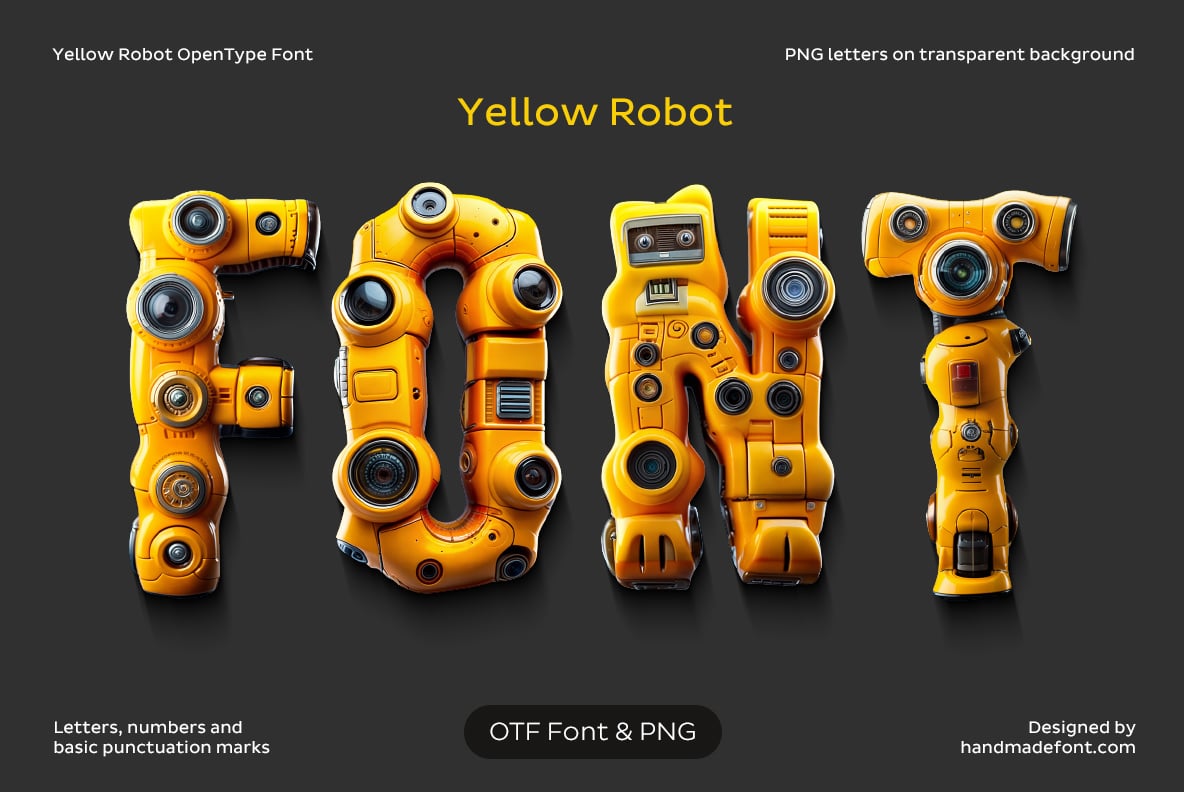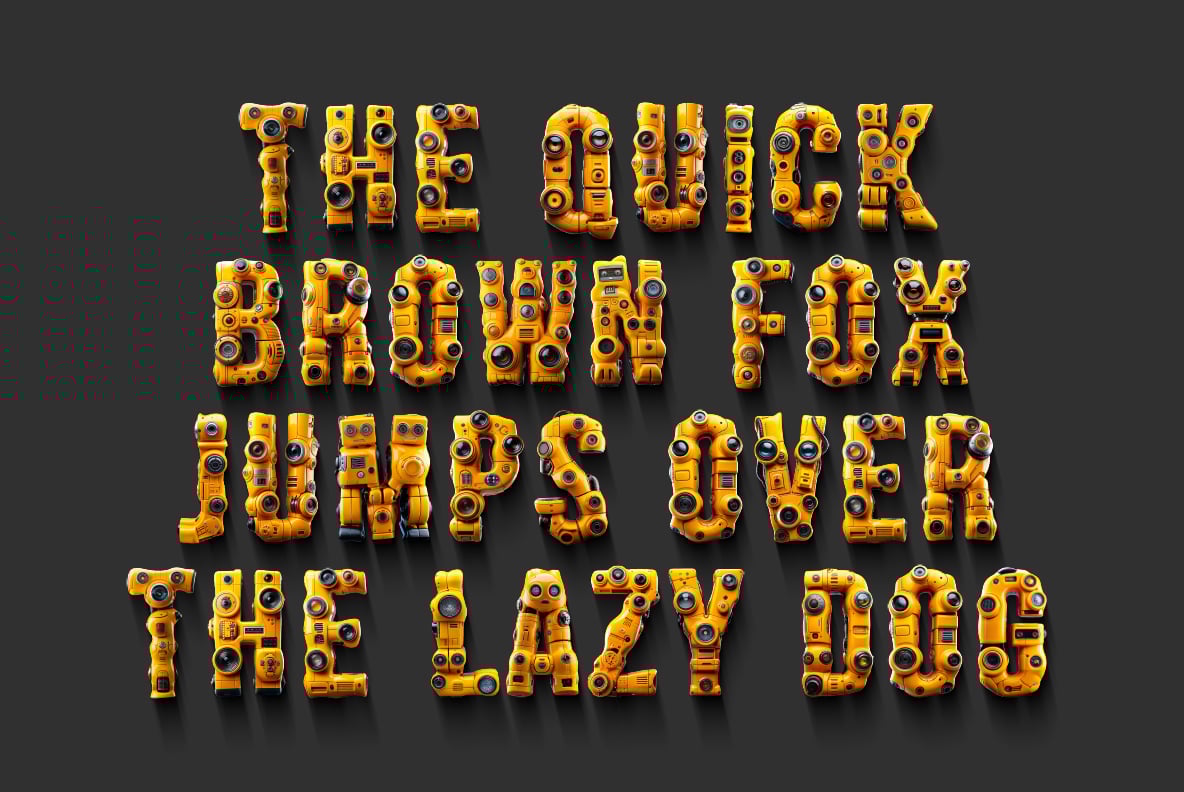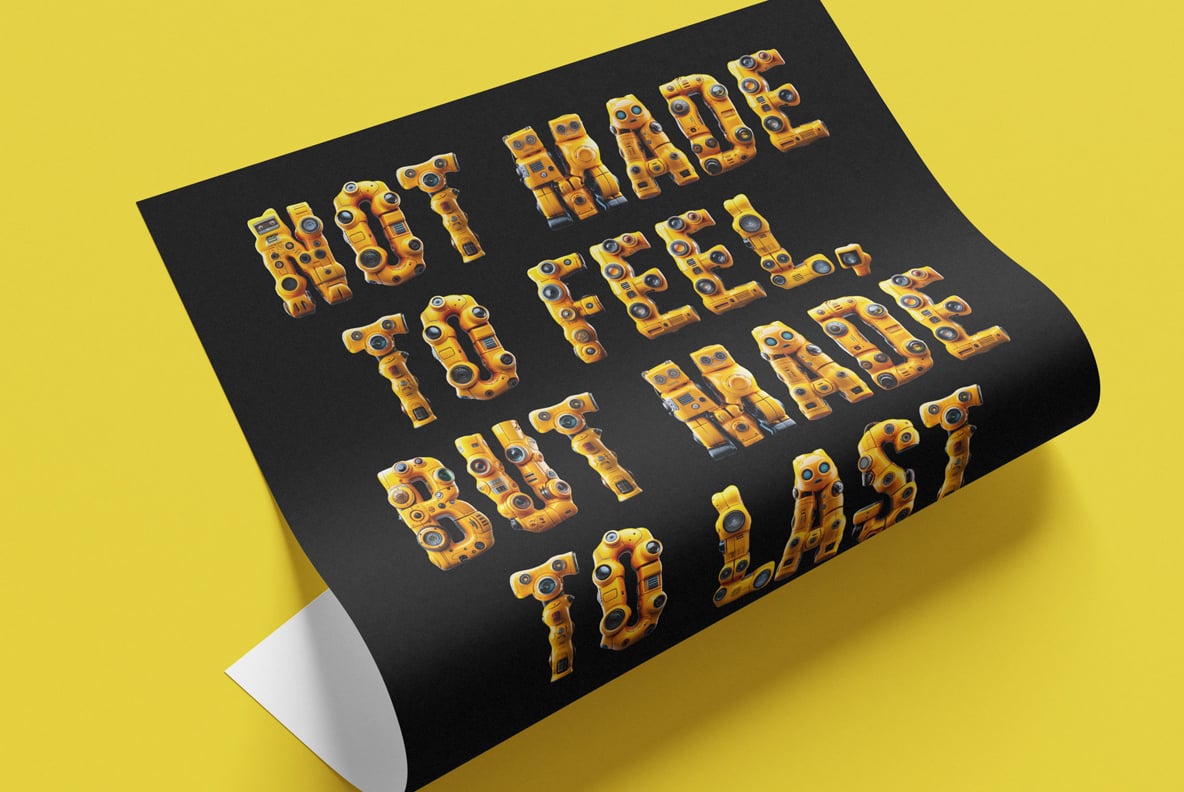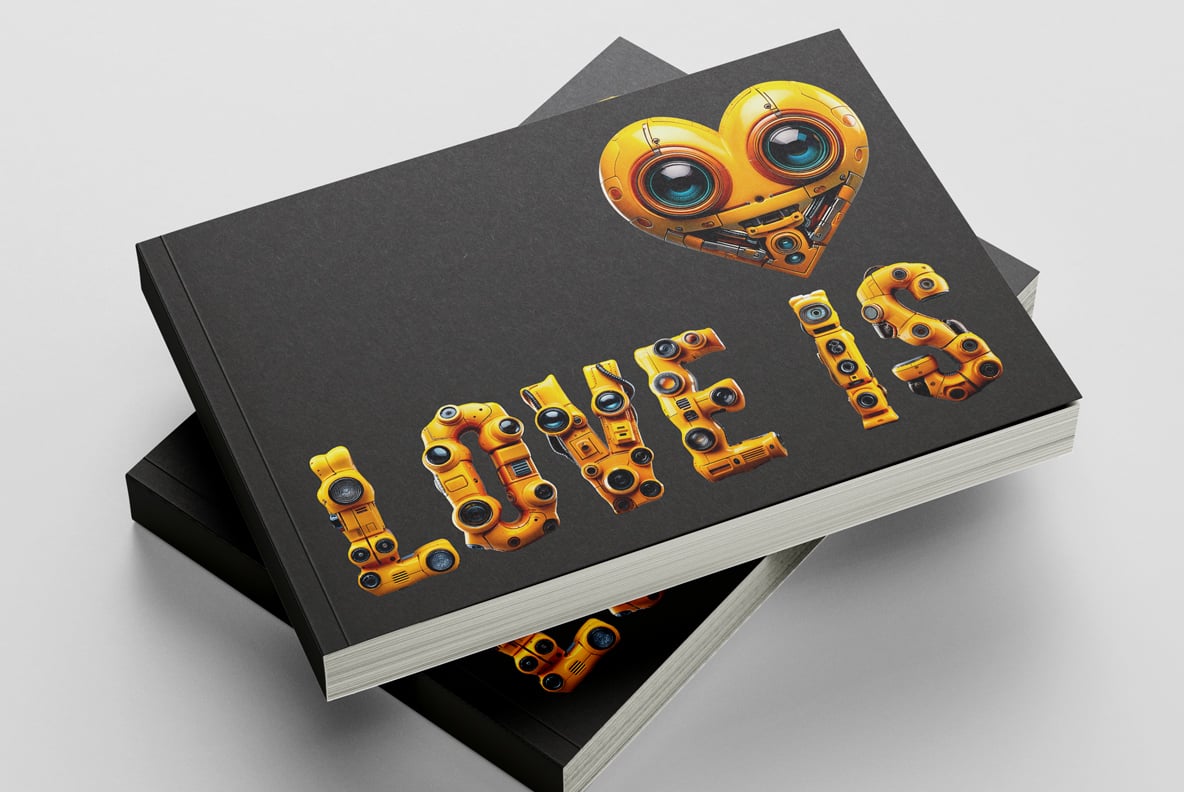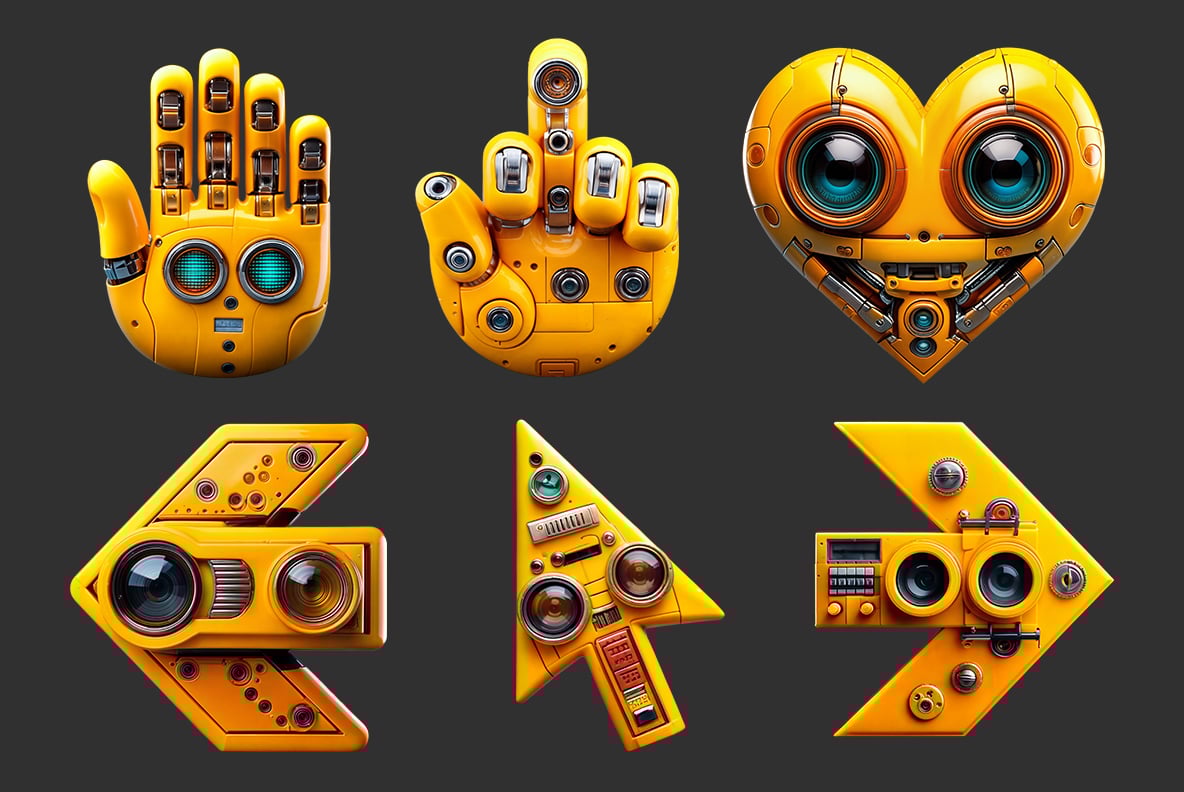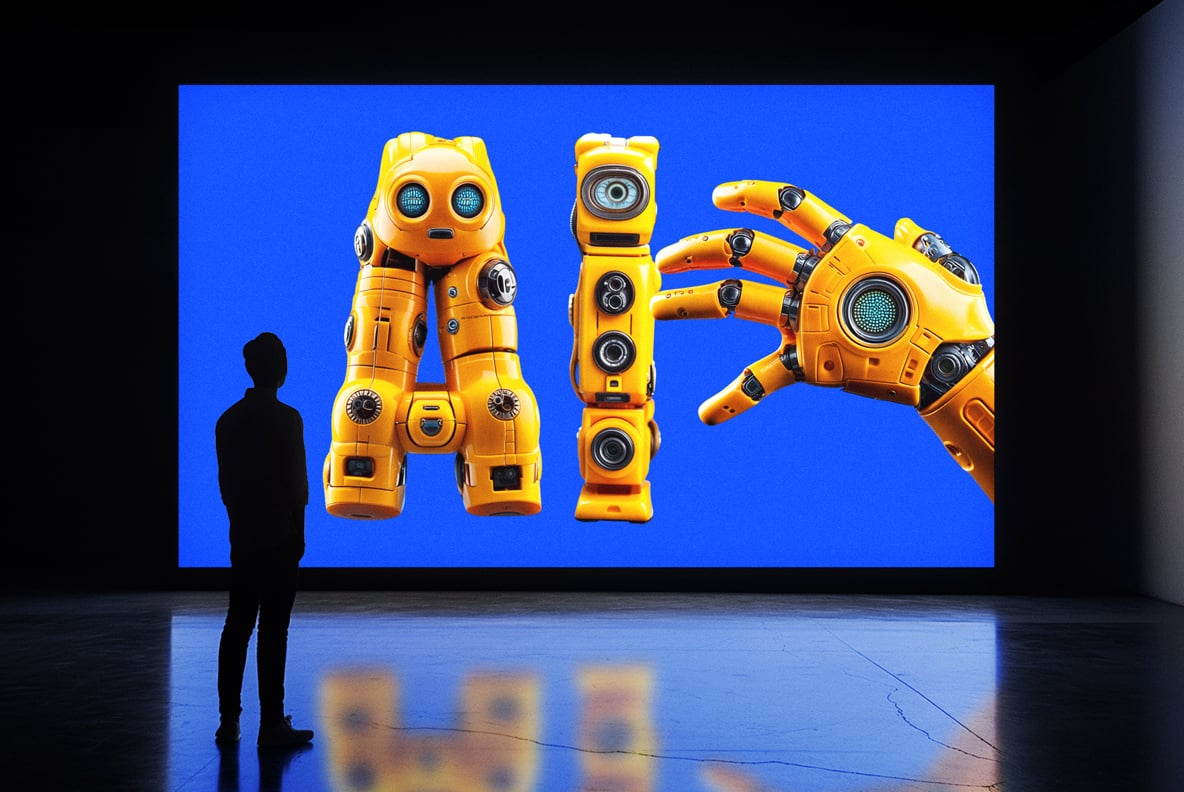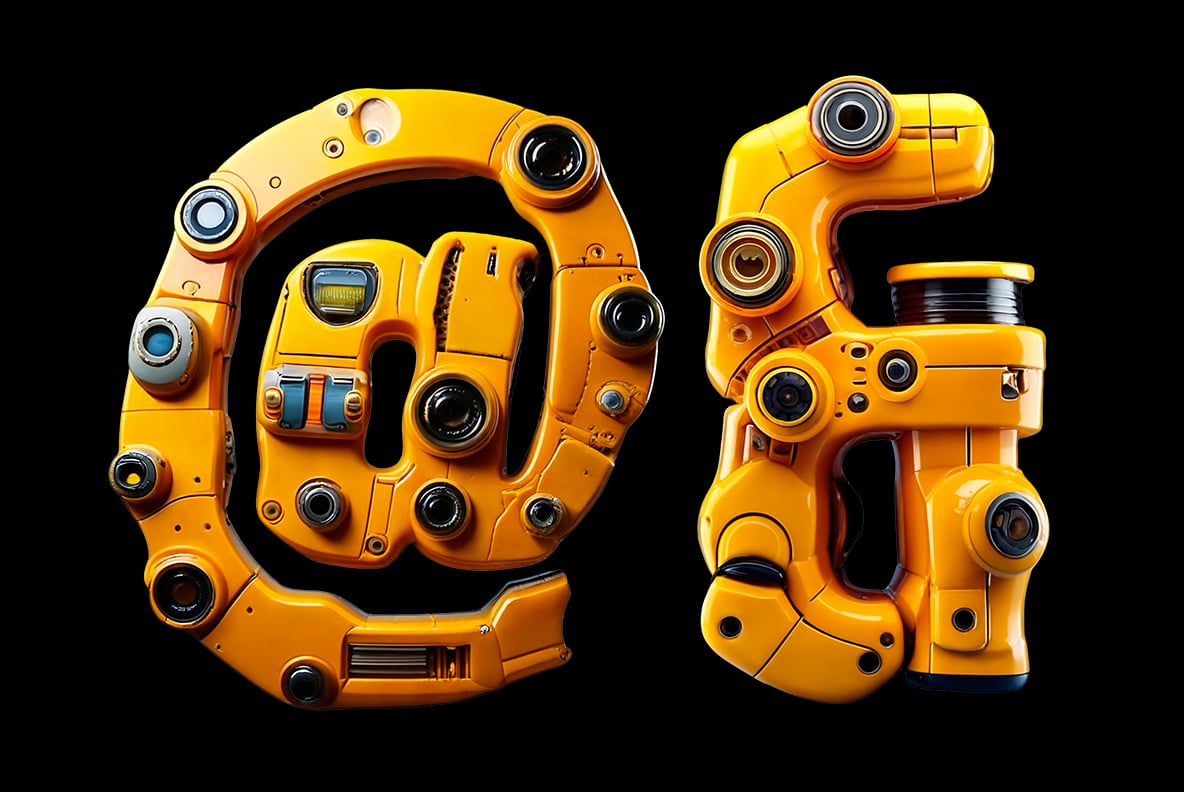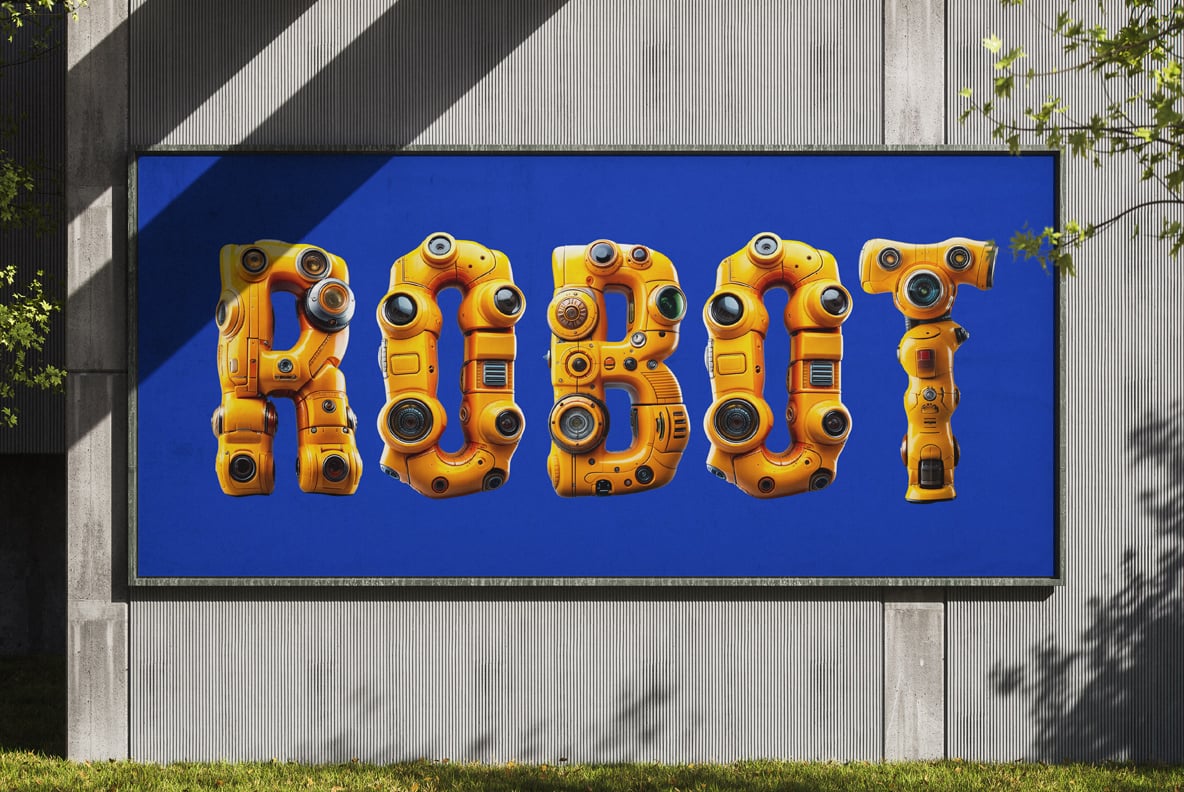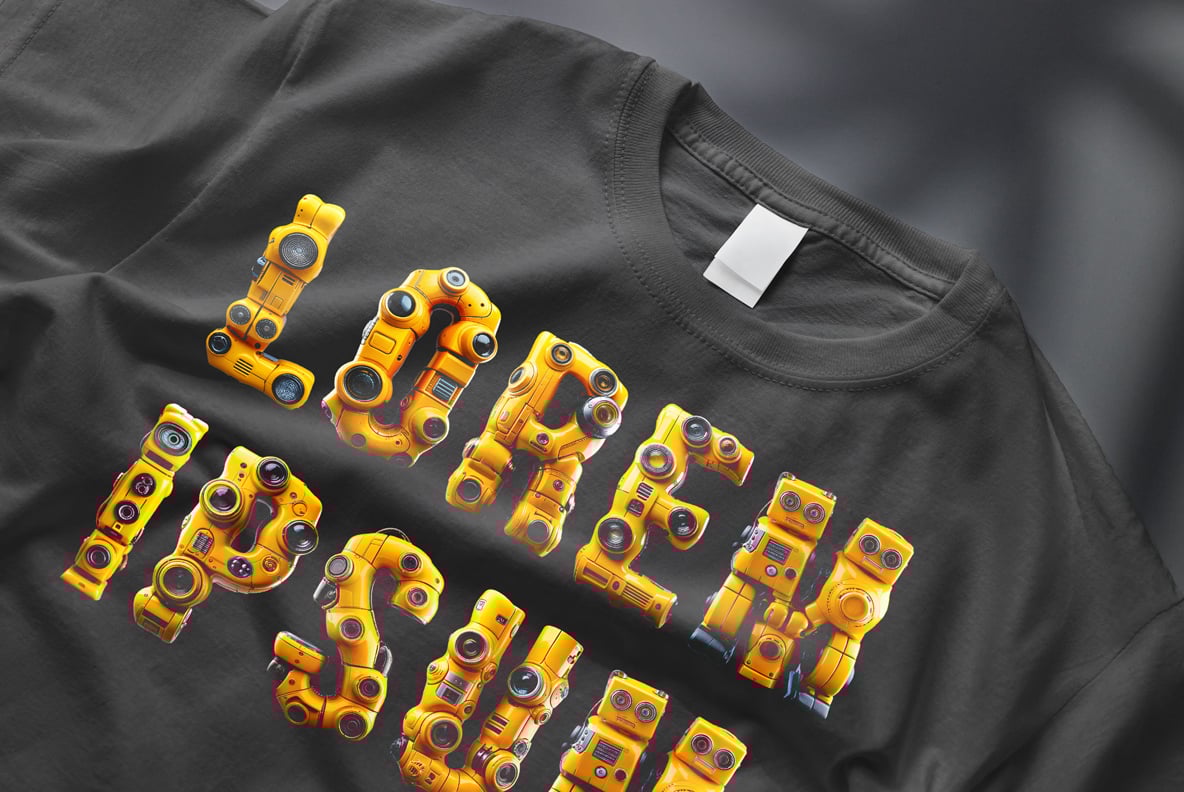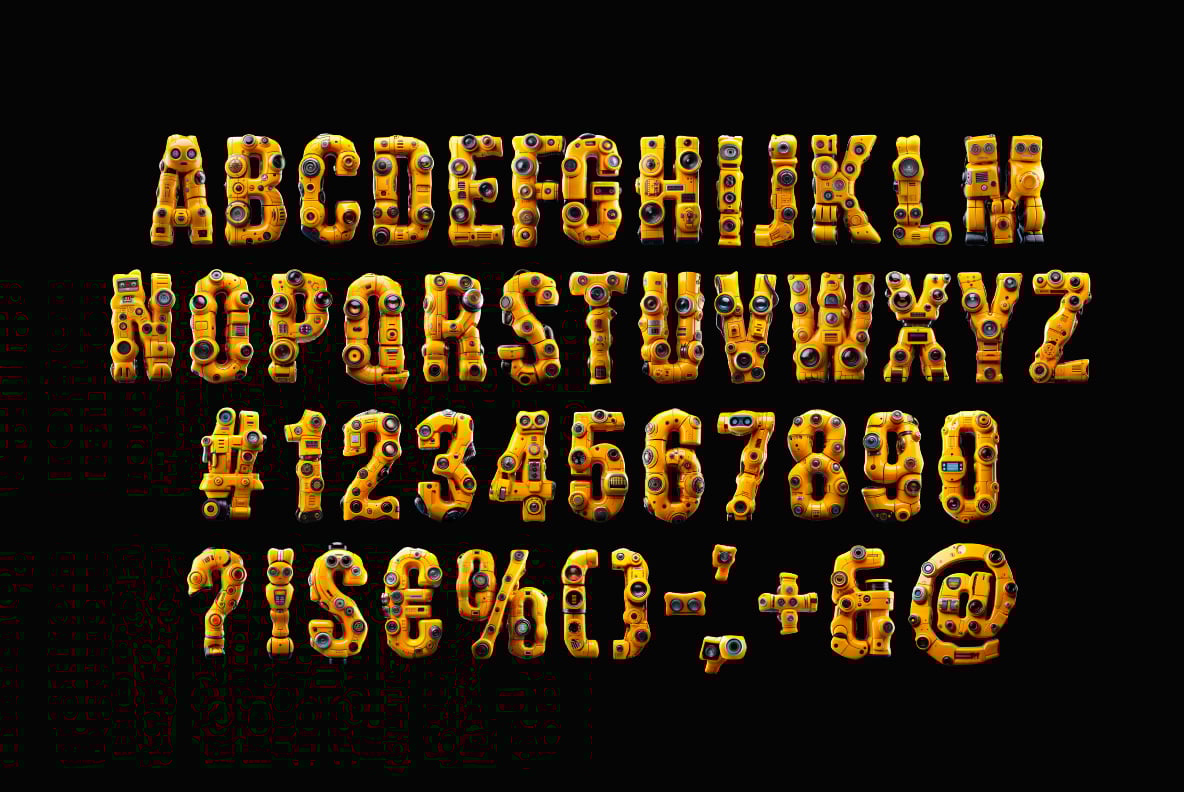
Yellow Robot Font
The **Yellow Robot Font** is a futuristic typographic marvel built from the dreams of sci-fi designers and the bolts of AI engineers. Each letter is a vibrant yellow construct, assembled from sleek mechanical parts, lenses, and robotics details that bring a lifelike charm to the design. It’s playful, bold, and visually rich—perfect for tech branding, gaming titles, robotics projects, or any creative work that dares to break the mold. These letters feel alive, almost ready to walk off the screen. Yellow Robot Font isn’t just a typeface—it’s a mechanical revolution in every word you write. Bold, bright, and built to impress.
A high definition OpenType Font. Contains uppercase characters, numerals and basic punctuation. (Draw height roughly 800 pixels). All letters and glyphs that comprises this font you can see on the preview.
Others : ! ? - . ' $ € % & # @